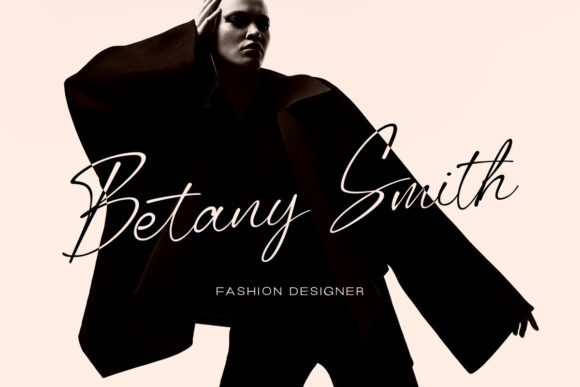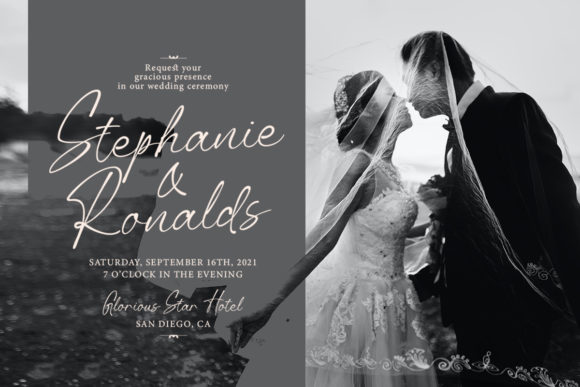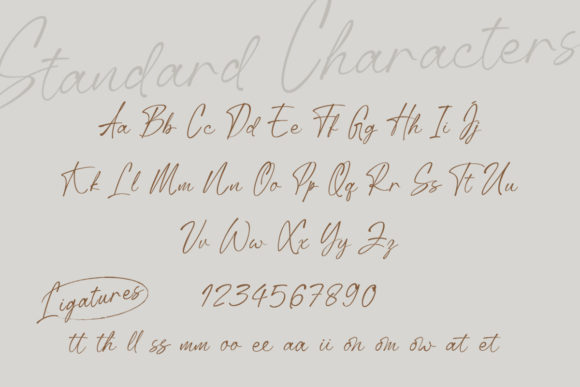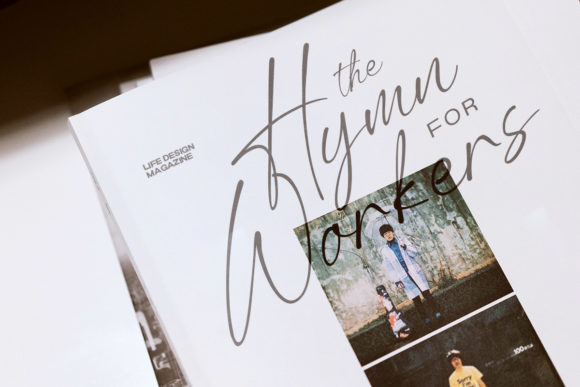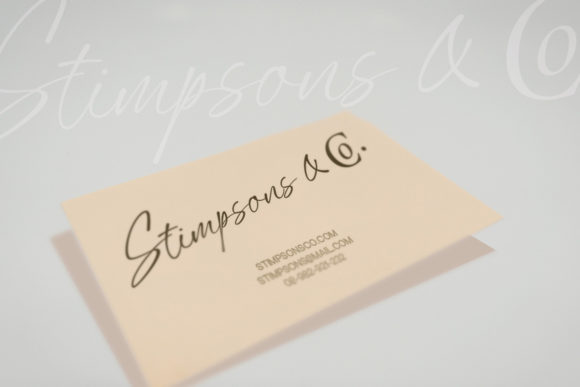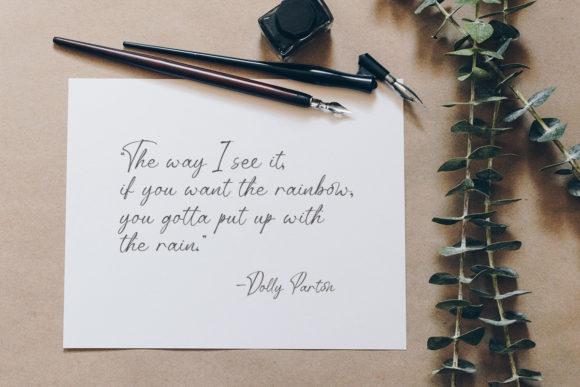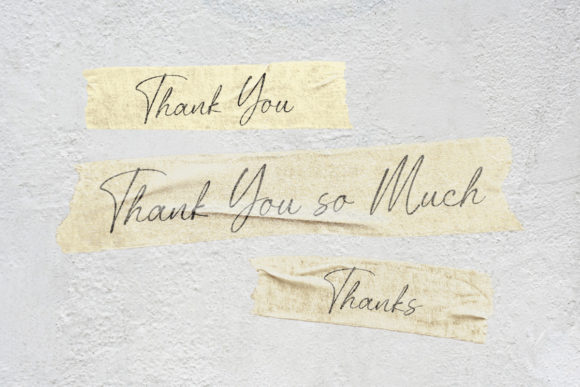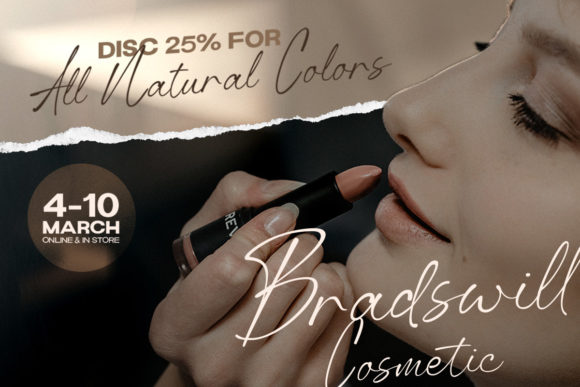
Anstally Script Font
About Anstally Script Font
Anstally Script is a lovely and timeless handwritten font. It is the best choice for creating eye catching logos, branding and quotes. Every letter has a unique and beautiful touch, which will make your design come alive!